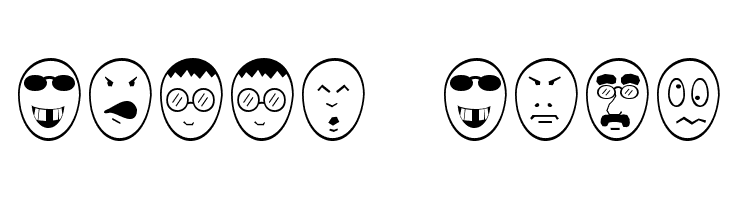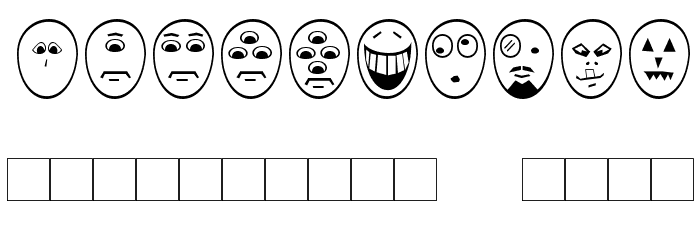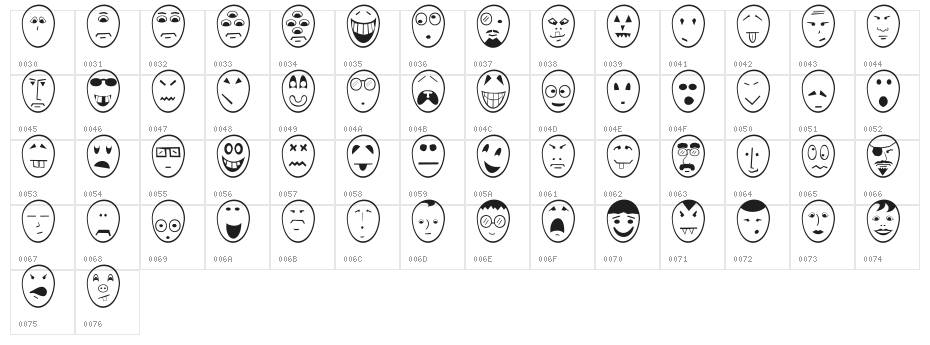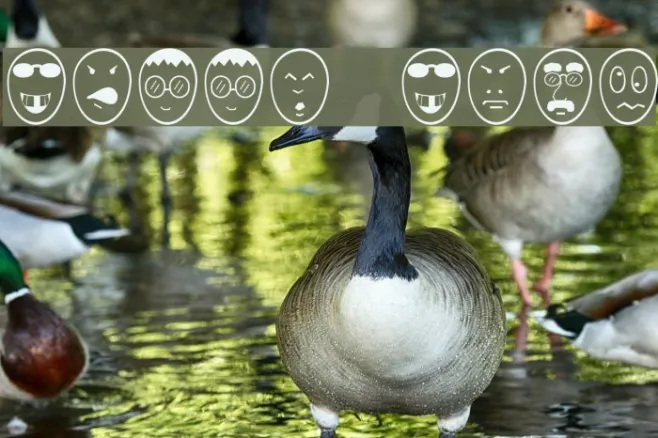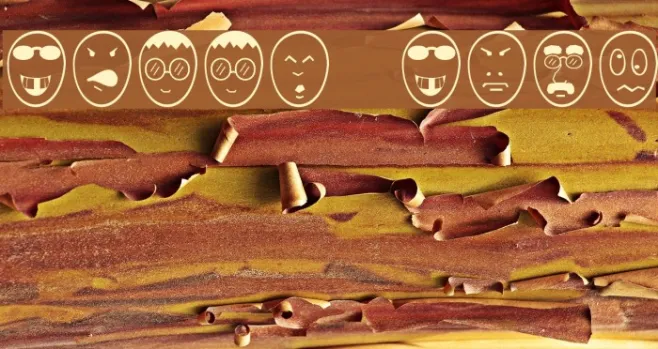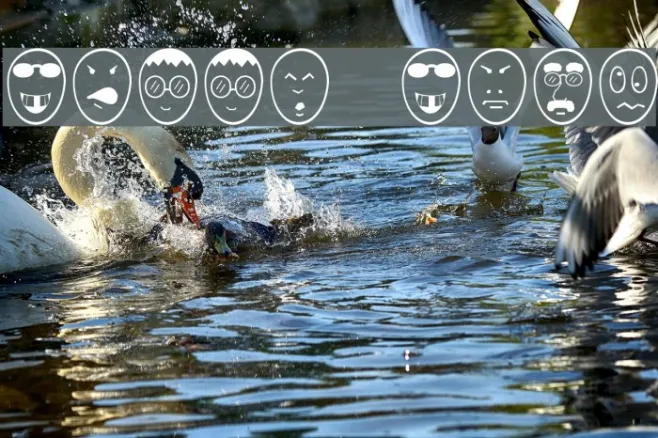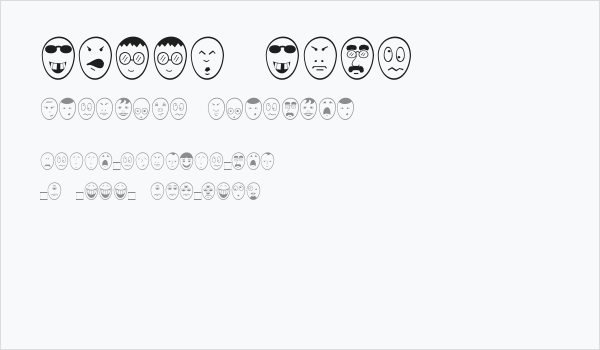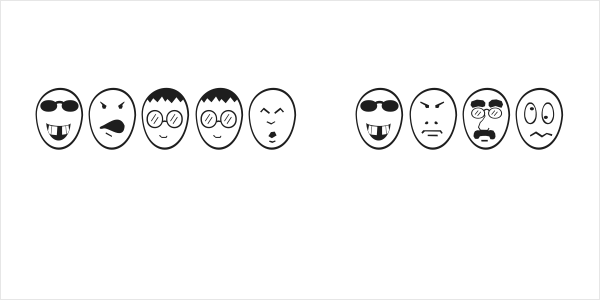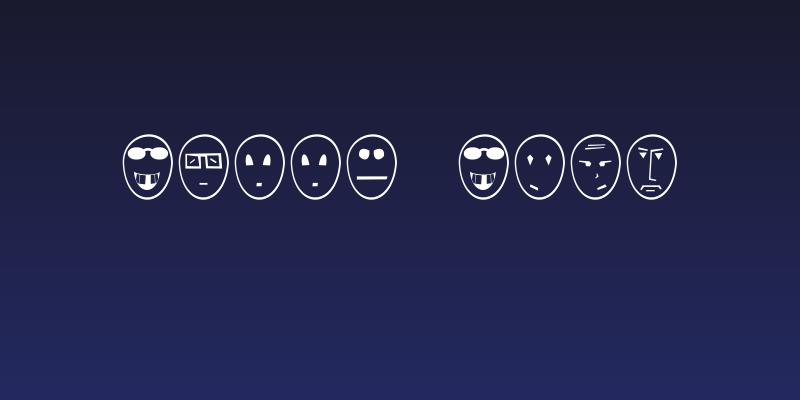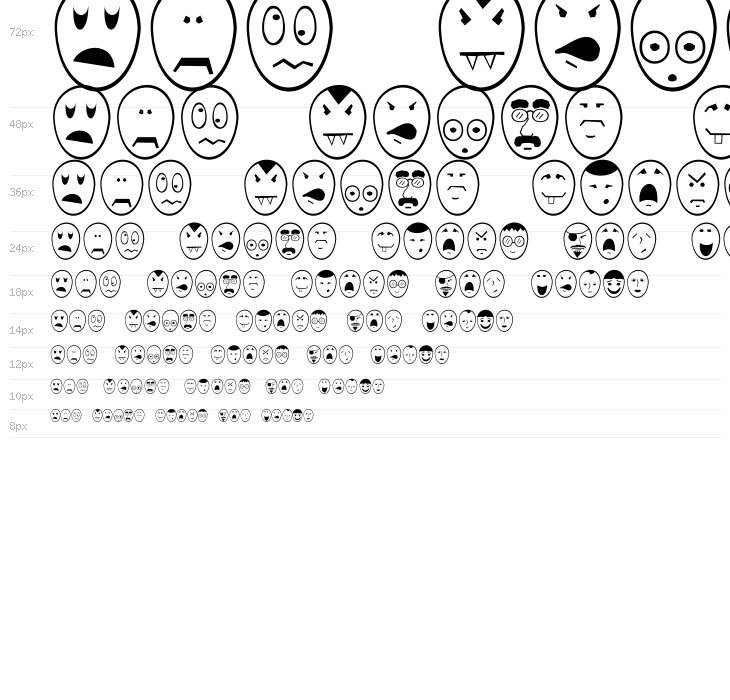
Funny Face Font
Funny Face Description
A decorative display font where each character is represented by a unique, hand-drawn cartoon face with exaggerated and humorous expressions. The faces are outlined in black with varied facial features, giving each letter and number a distinct personality.
| Overall Style | Playful, Whimsical, Decorative |
| Use Case | Headlines, Posters, Logos, ChildrenΓ’β¬β’s materials |
| Proposed Projects | ChildrenΓ’β¬β’s books, party invitations, comic strips, posters, playful branding, educational materials. |